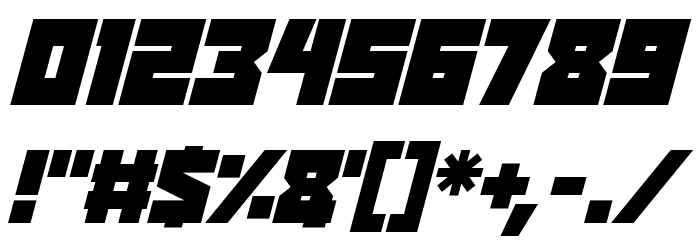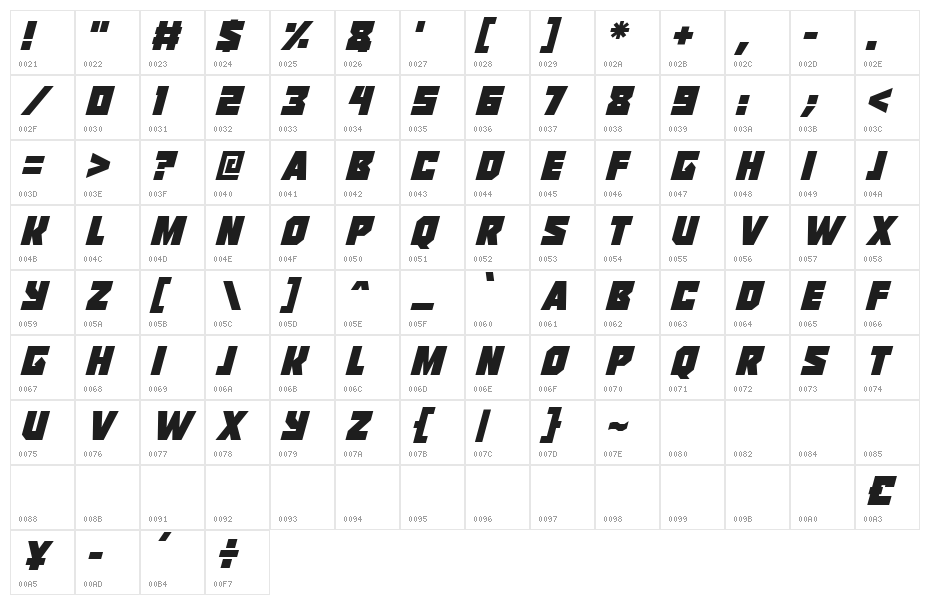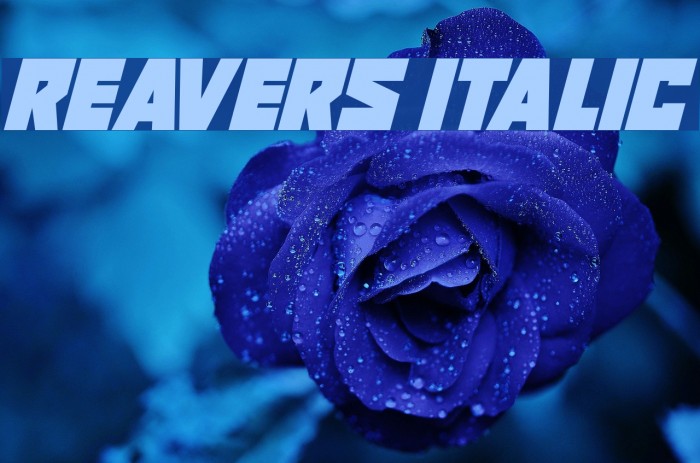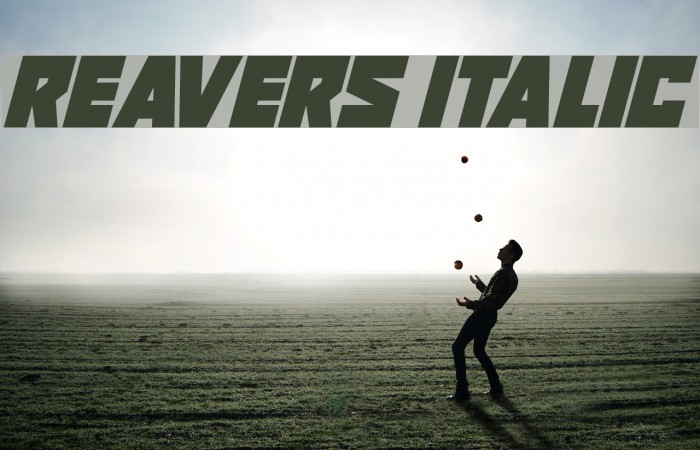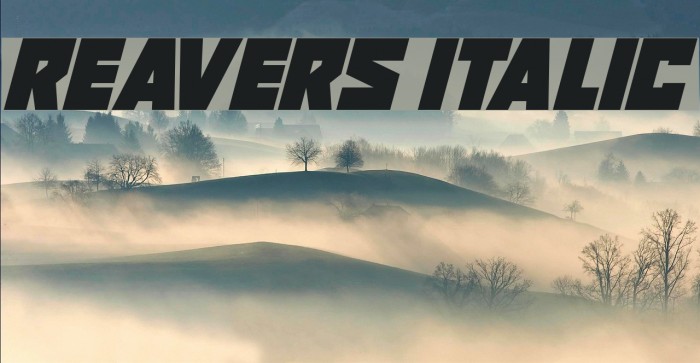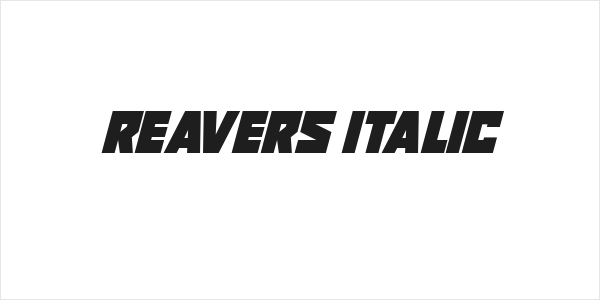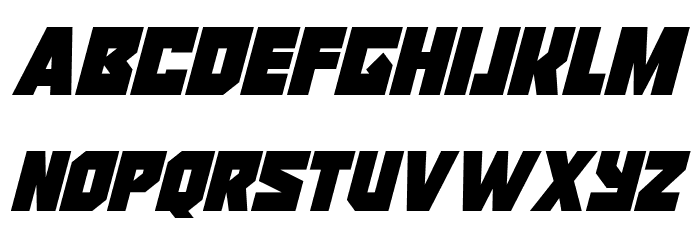
Reavers Italic Font
Reavers Italic Description
This font features a bold and dynamic design with sharp, angular edges and a forward-leaning italic style. The characters are heavily stylized, giving a sense of movement and aggression. The uppercase and lowercase letters maintain a consistent weight, contributing to a cohesive and impactful appearance. The numbers and special characters follow the same angular and bold aesthetic, ensuring uniformity across all glyphs. This font's unique style makes it stand out, ideal for projects that require a strong visual impact.